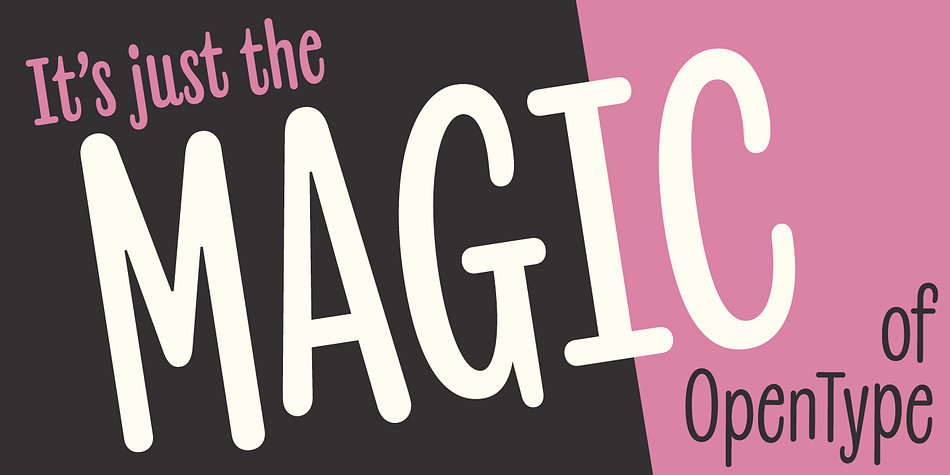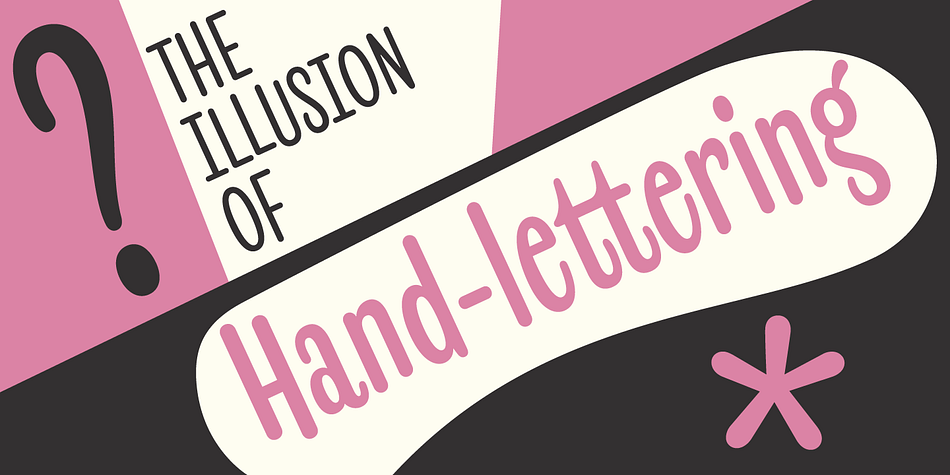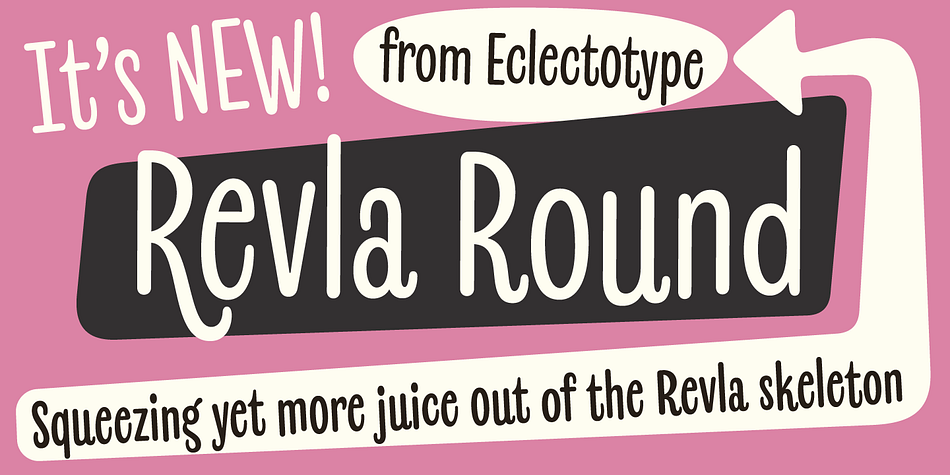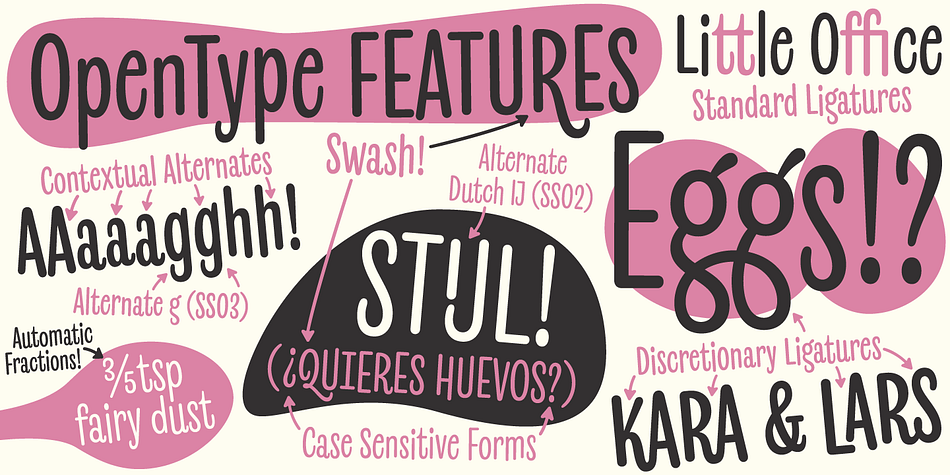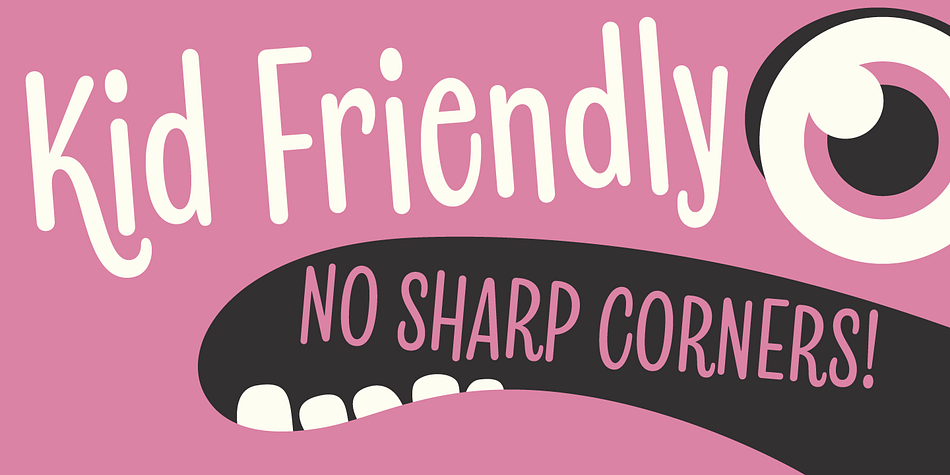
Revla Round
Designed by Dave Rowland, Revla Round is a display and hand display font family. This typeface has four styles and was published by Eclectotype Fonts.
Squeezing yet more life out of the Revla skeleton!
This is Revla Round, a child-friendly version of Revla Sans, completely overhauled so there’s no chance of cutting yourself on any corners. Every rounded terminal and corner has been painstakingly drawn, rather than using a round-corners filter. OpenType contextual alternates make for text that is lively and bouncy, without the monotony of obviously repeating letterforms.
It’s shamelessly fun, but pretty serious at the same time. The range of weights can be used to maintain an even colour across different sizes - use lighter weights for bigger sizes and vice versa. OpenType features include automatic fractions, ordinals, contextual alternates, standard and discretionary ligatures, and case-sensitive forms.
Obviously, in sharing a common skeleton, it will work well with other members of the ever-growing Revla Superfamily.